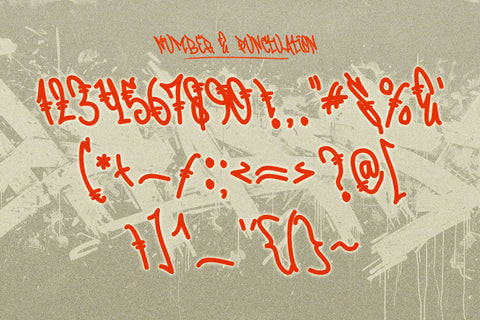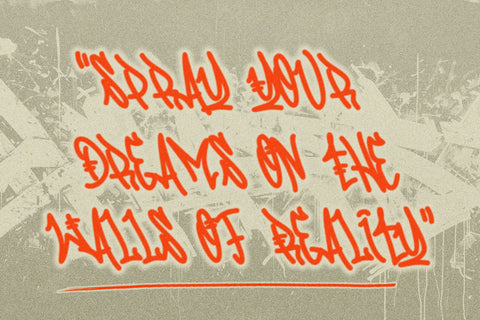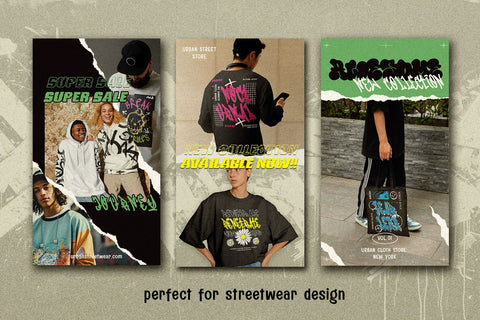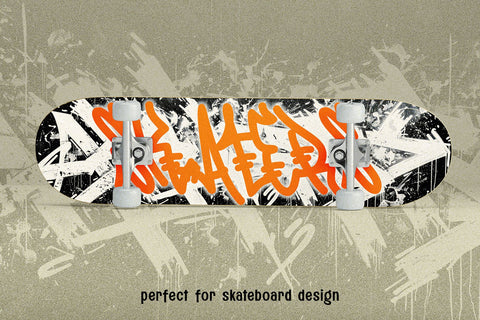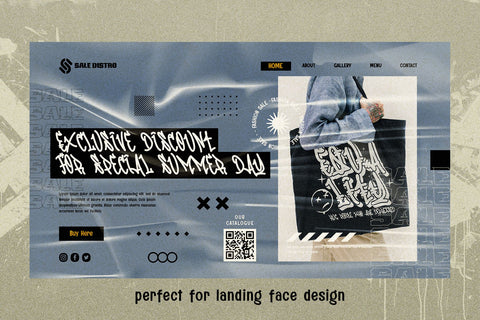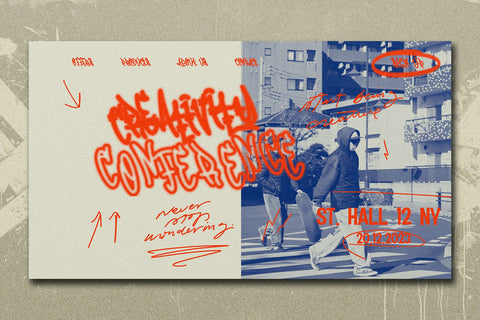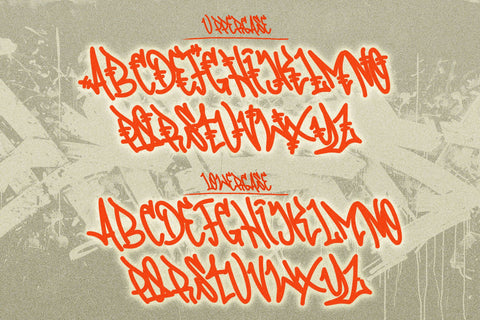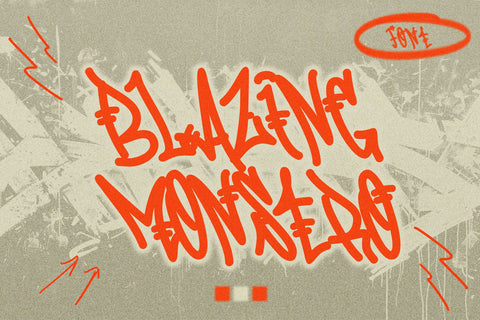
Blazing Monstro - One Line Graffiti Alphabet
"Blazing Monstro" is a natural handwritten monoline graffiti font. Its fluid, organic strokes capture the essence of authentic street art, making it an ideal choice for projects that require a raw, urban aesthetic. Whether you're designing for apparel, album covers, posters, or digital media, "Blazing Monstro" brings a dynamic and edgy vibe to your work. Perfect for creating standout headlines and adding a touch of rebellious flair to any design, this font ensures your projects are both impactful and memorable.